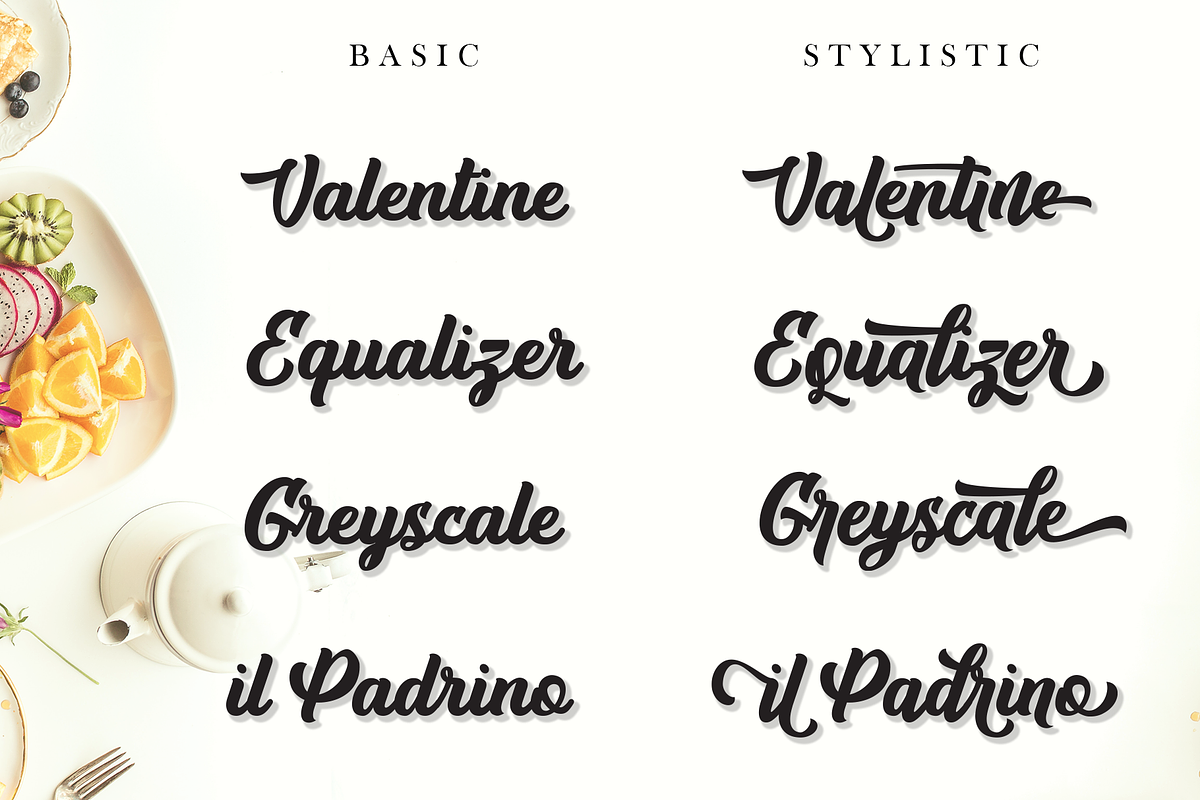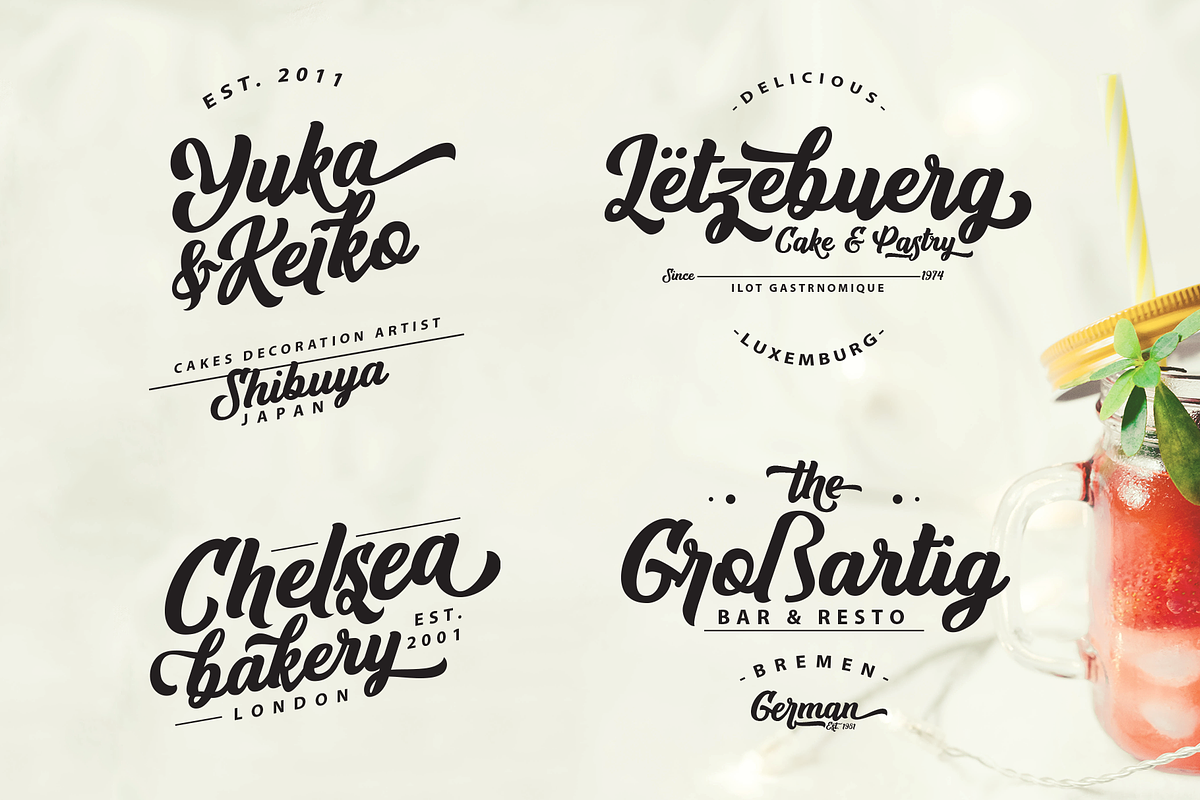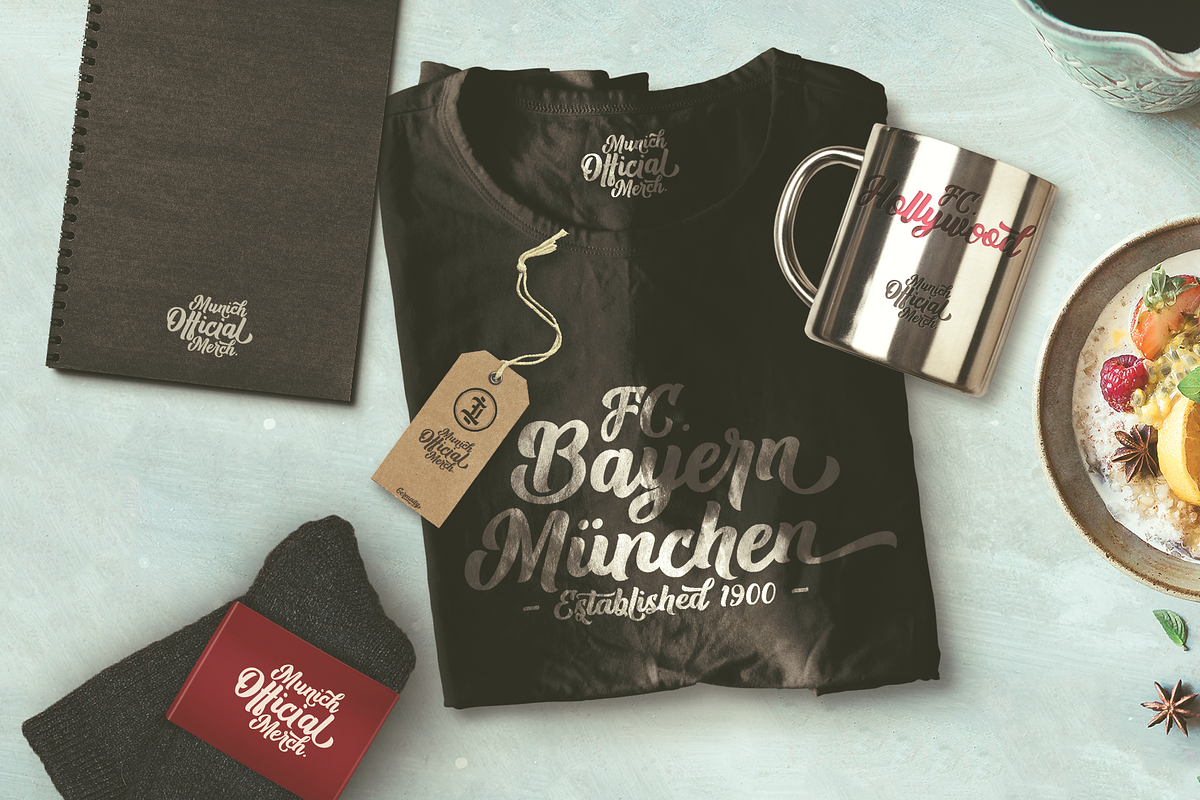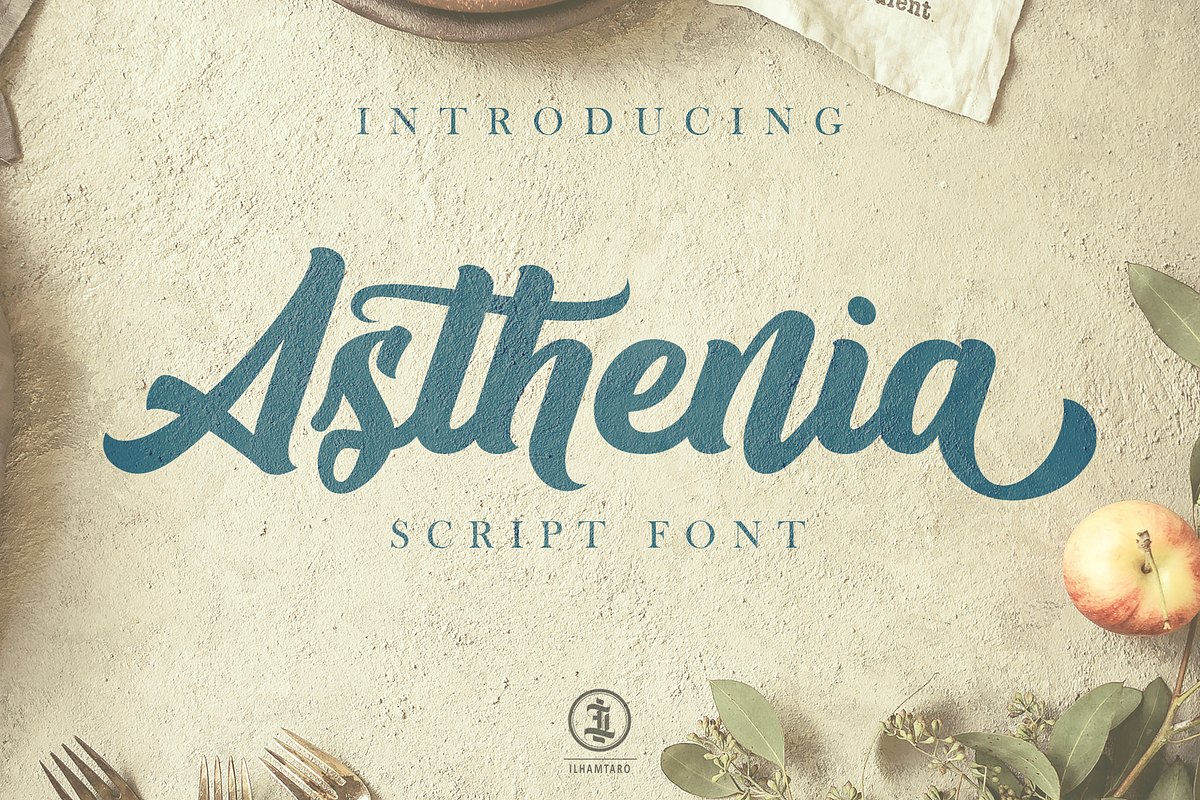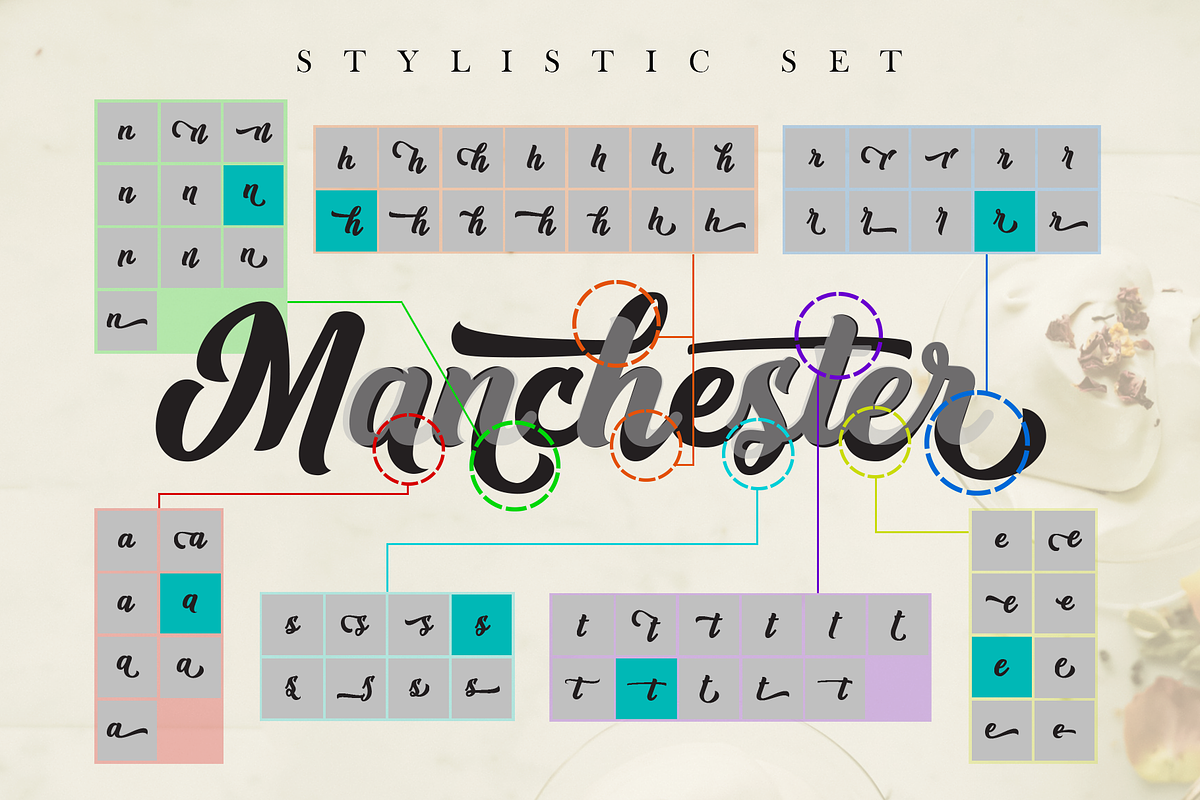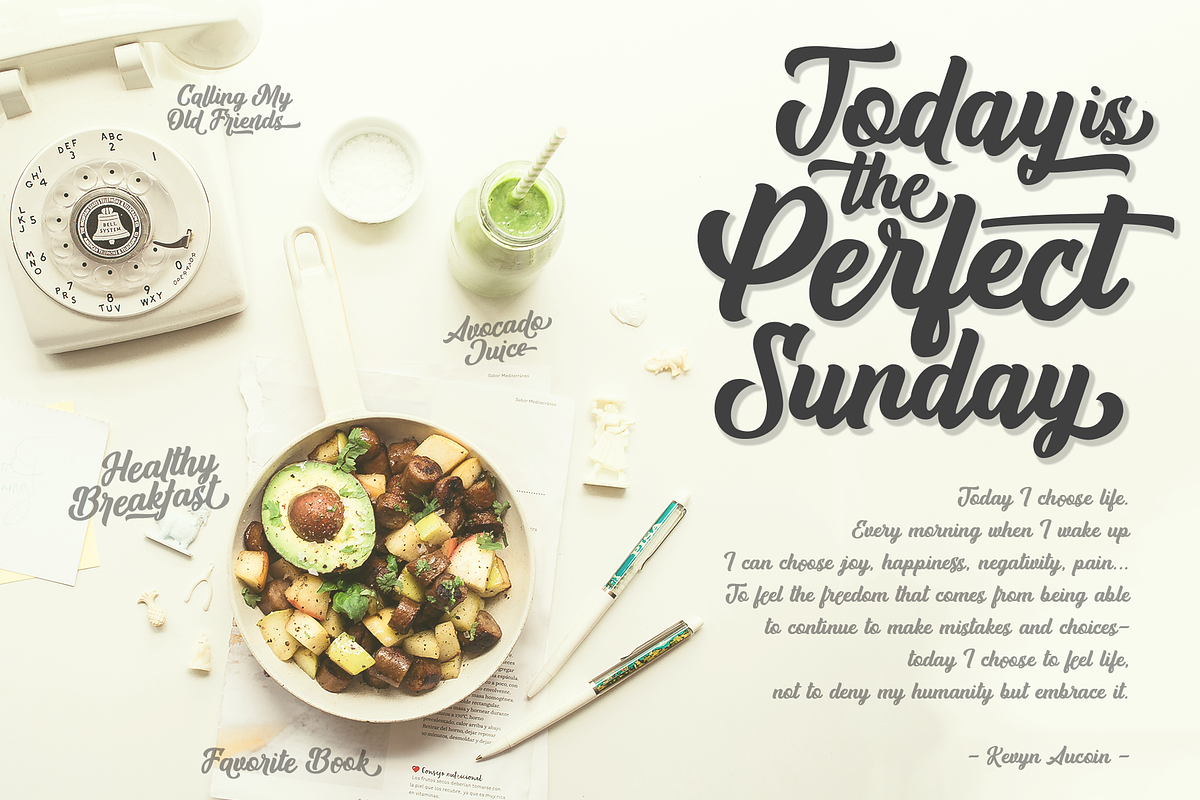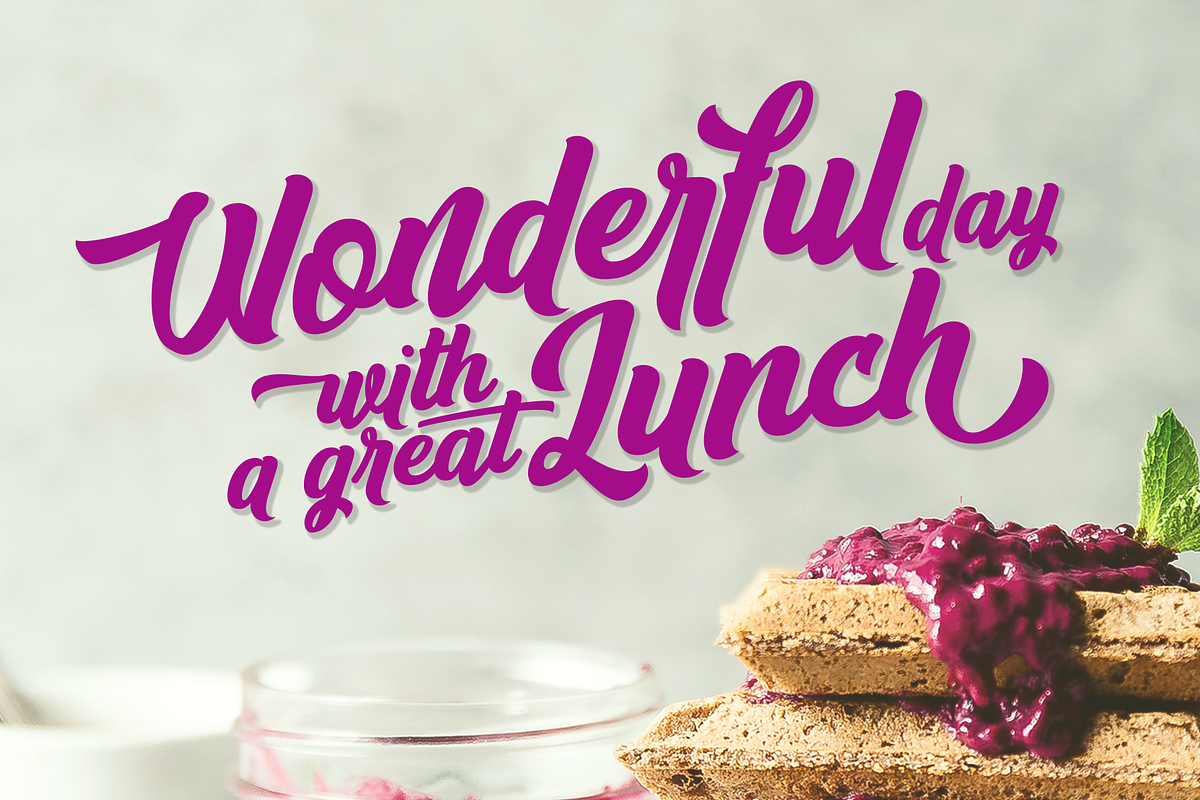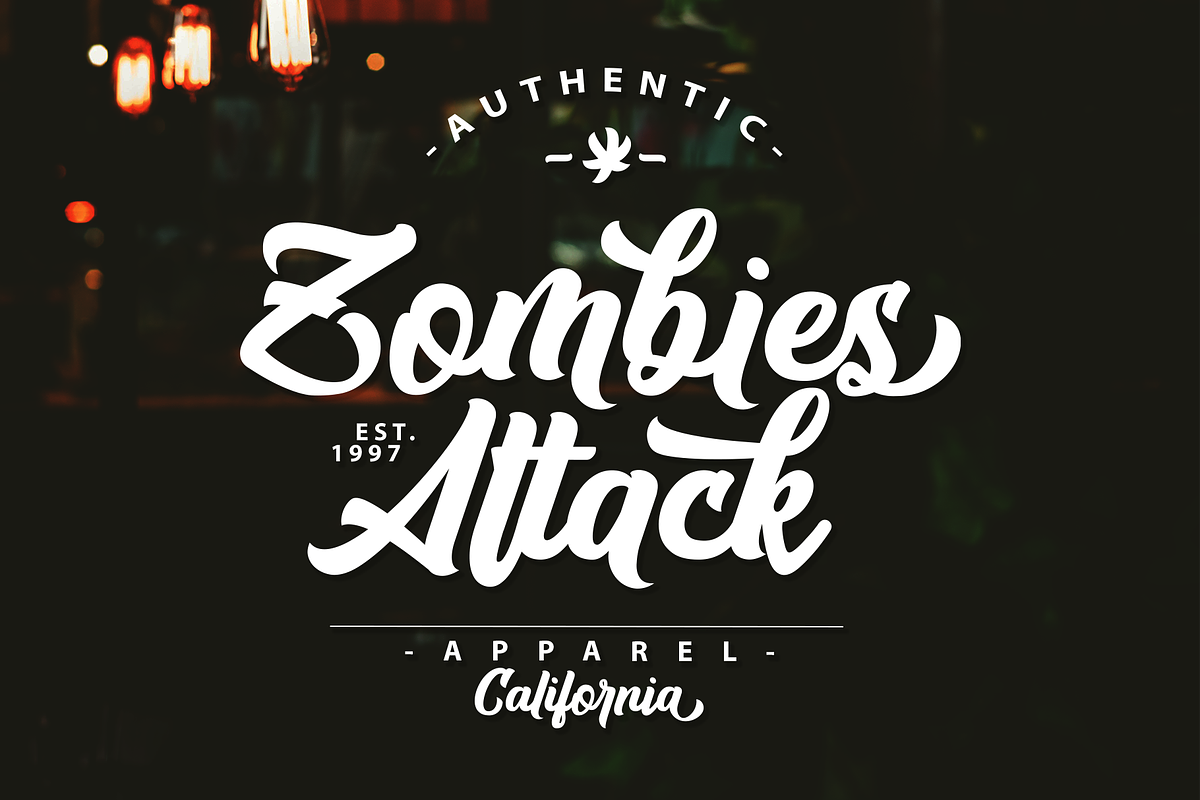
Asthenia for Branding & Streetwear
ASTHENIA
Asthenia is a script font with 420+ glyph including uppercase, lowercase, numerals, punctuations, ligatures and a lot of alternate characters, so it can easily customized to create logotype, poster, flyer, t-shirt design, packaging, branding, merchandise and many other creative projects.
Inspired by brushpen calligraphy, showing the characteristic of its flow and thickness.
Features: So many Alternate Characters. Ligatures. Support Multilingual Characters.